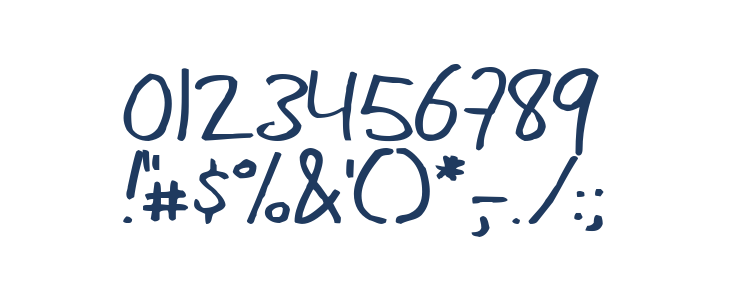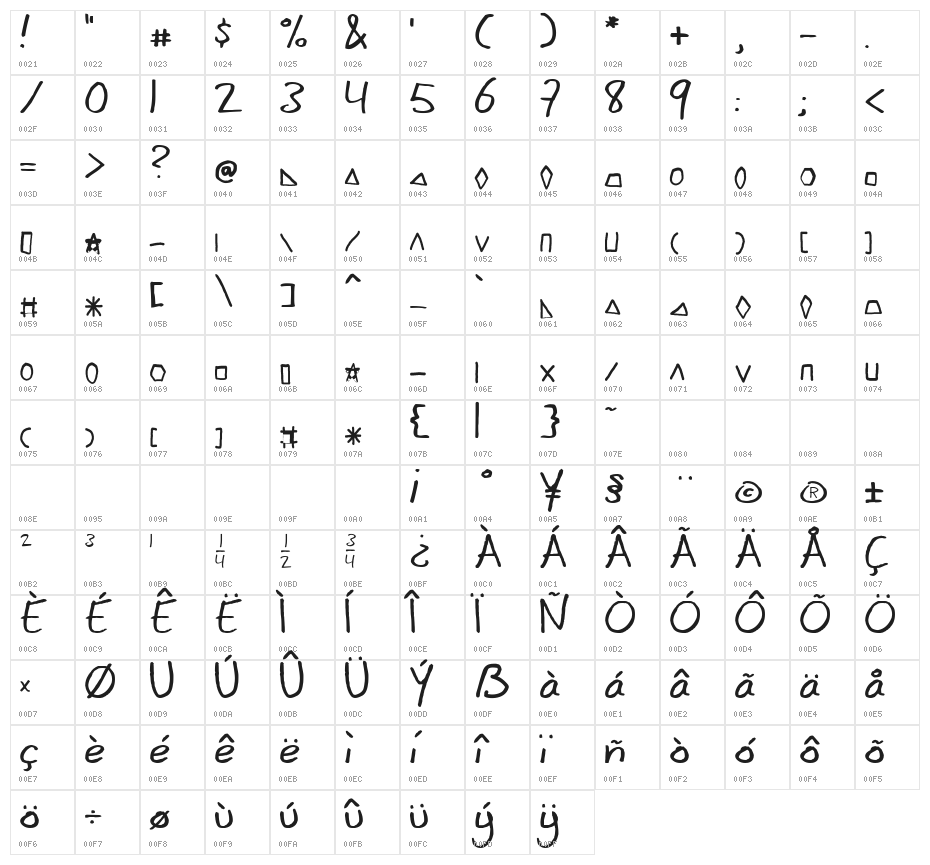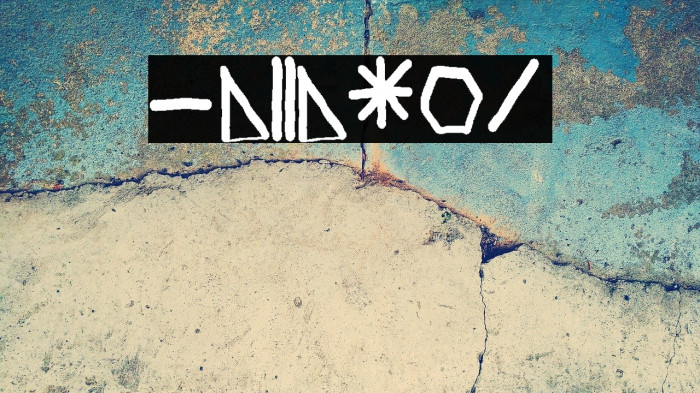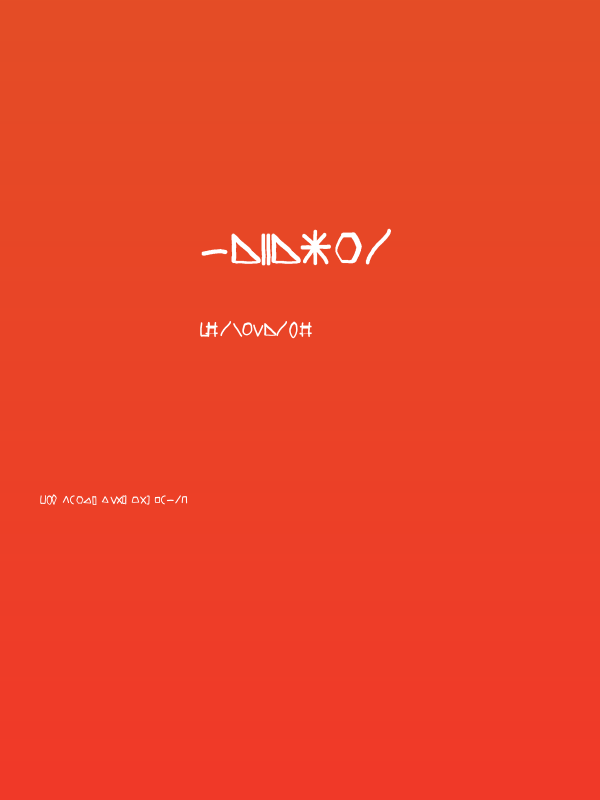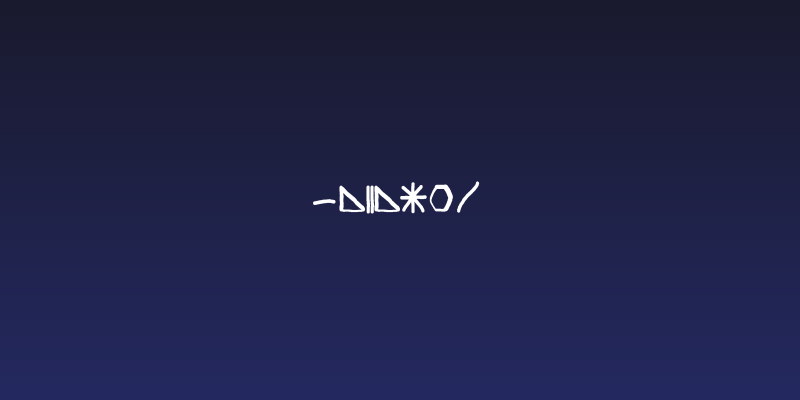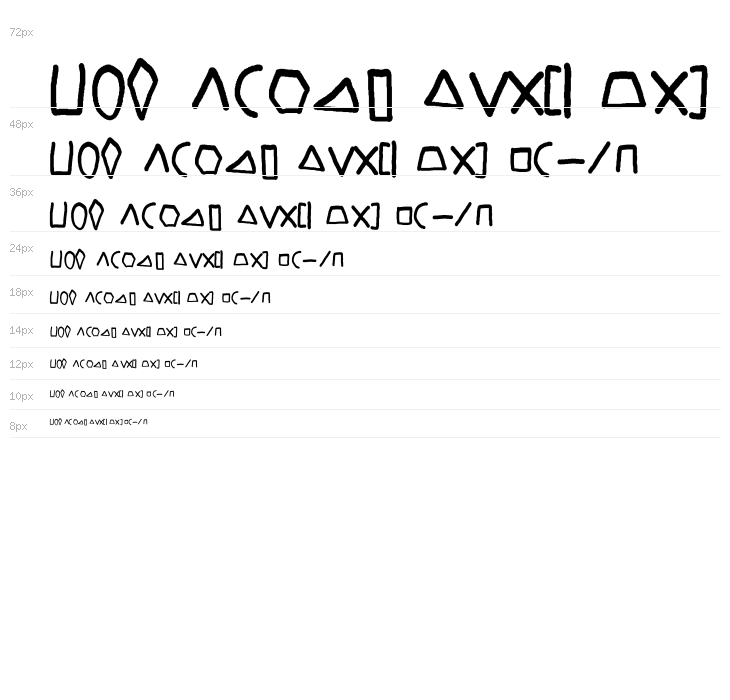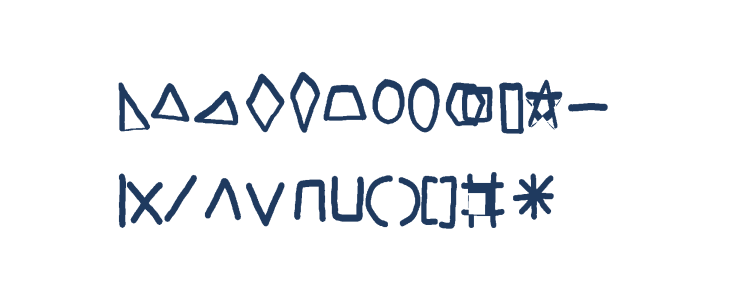
mannazip Font
mannazip Description
This font features a unique and abstract design, with characters resembling geometric shapes and symbols rather than traditional letters. The uppercase letters are represented by a series of triangles, diamonds, circles, and squares, creating a cryptic and artistic appearance. The lowercase letters follow a similar pattern, maintaining the geometric theme. Numbers are more recognizable but still retain a hand-drawn, irregular style. Special characters are depicted with a playful and unconventional approach, adding to the font's overall quirky and artistic feel. This font is ideal for creative projects that require a distinctive and avant-garde touch.
| Overall Style | Avant-garde, Artistic |
| Use Case | Logos, Posters, Artistic projects |
| Proposed Projects | Ideal for art projects, creative posters, unique branding, and experimental designs. |